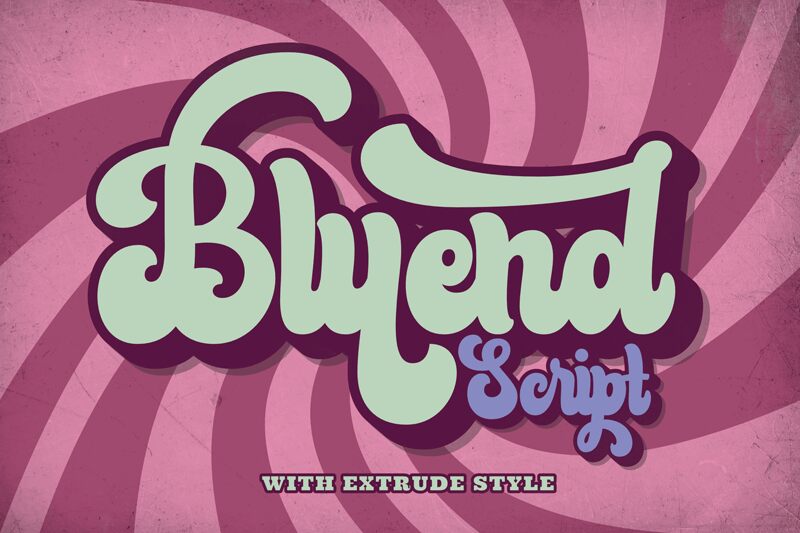
Bluend Regular
Bluend font by Ahwe Project is a free smooth brush font with a groovy style. It's lighthearted and playful, the perfect choice when looking to capture both clarity and whimsy. Bold as it might be at first sight, it features round shapes that soften its look on a white background of your choice. Some may consider it modern while others view the beauty behind its retro inspiration.
Packed with multiple use possibilities, this font would be ideal for music album covers, song posters, merchandise items such as t-shirts or mugs, notebooks covers, social media posts particularly Instagram posts or accounts’ headers; stickers design and various other branding projects from restaurants signs to shop signs for example. It's free to download so you can go ahead and use it for logos too!